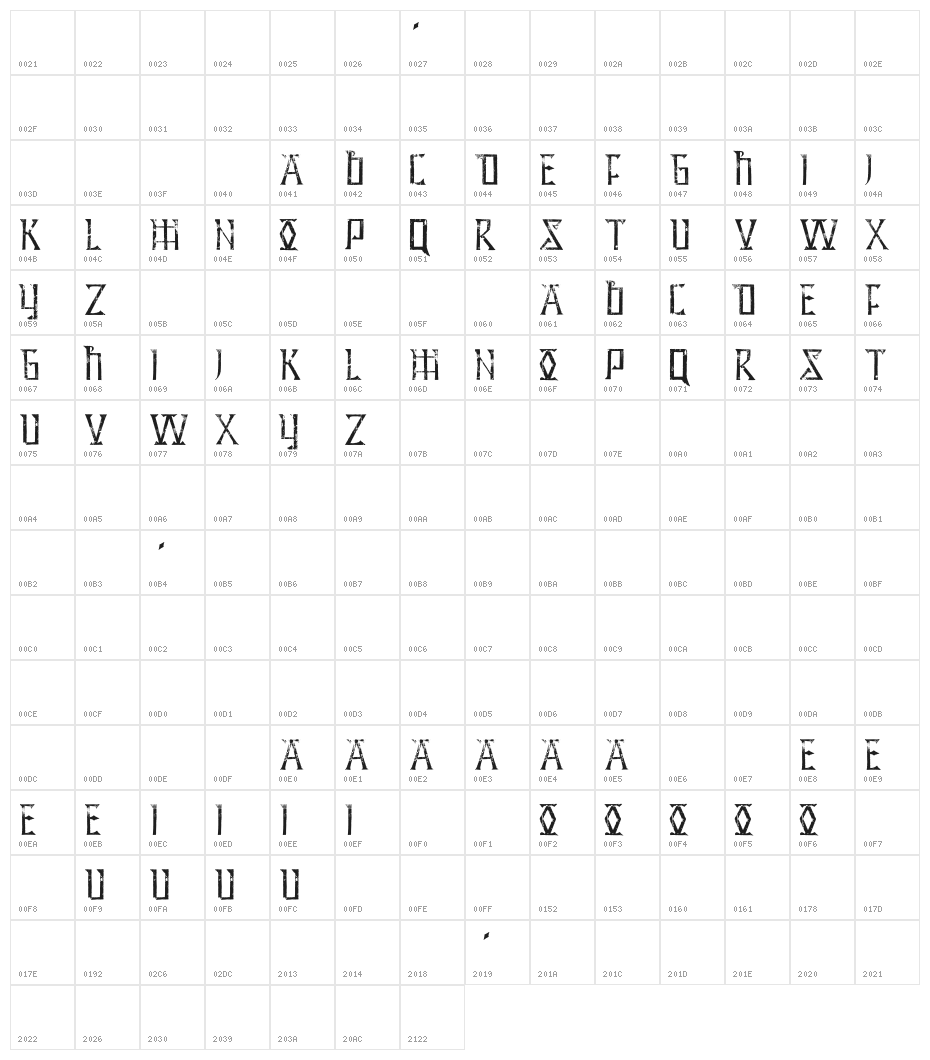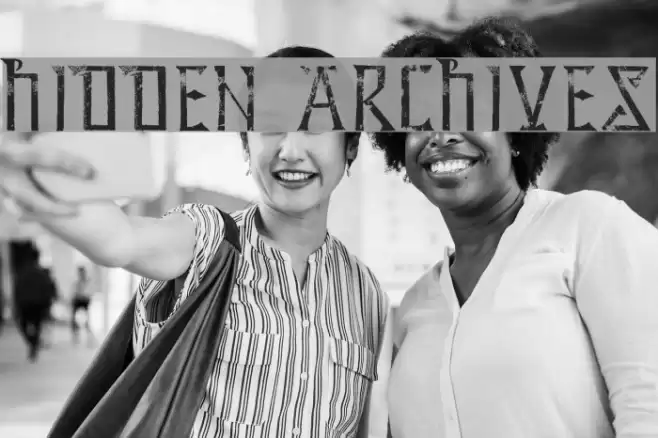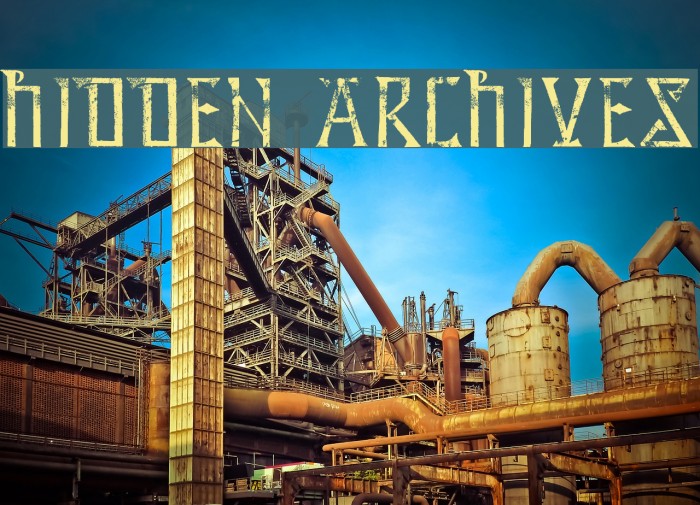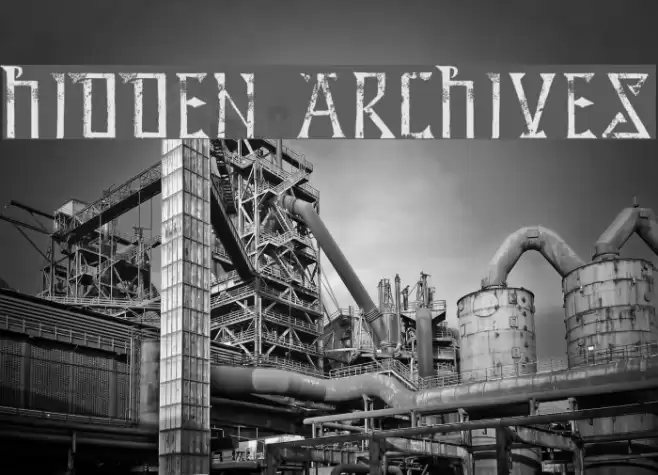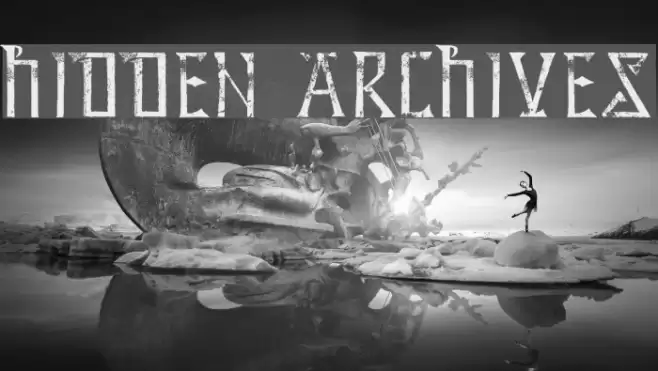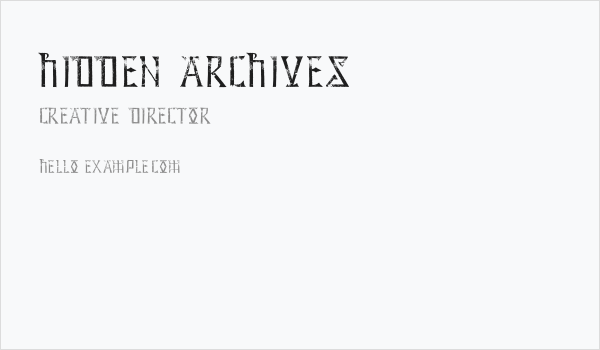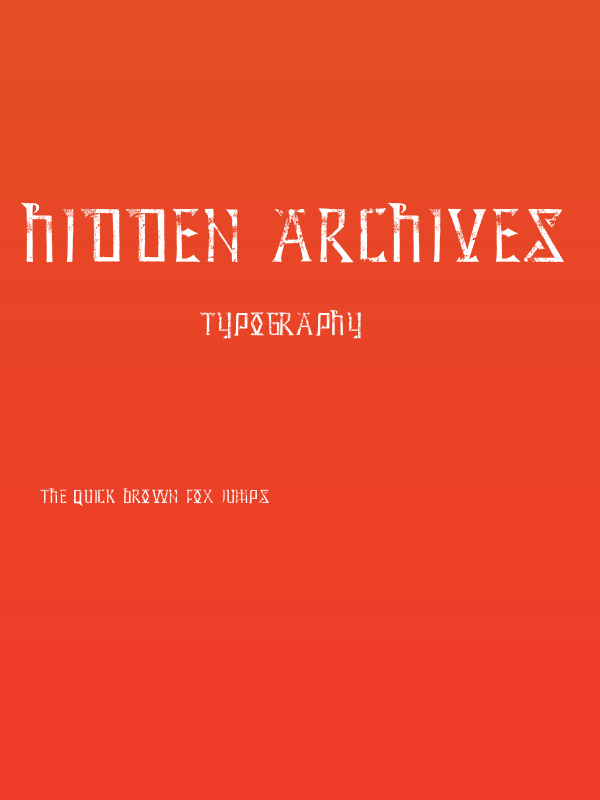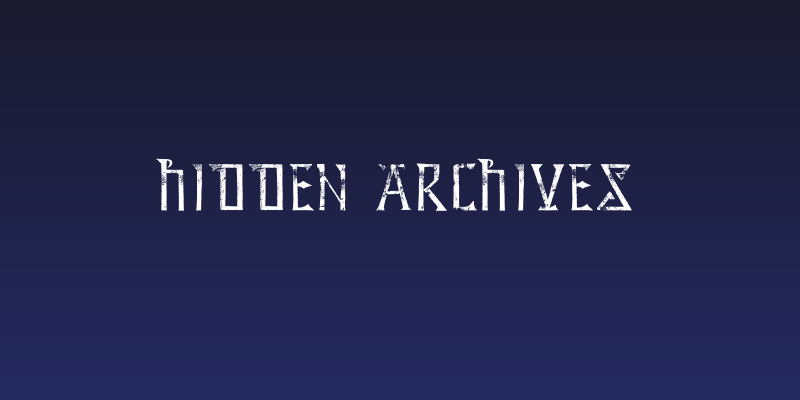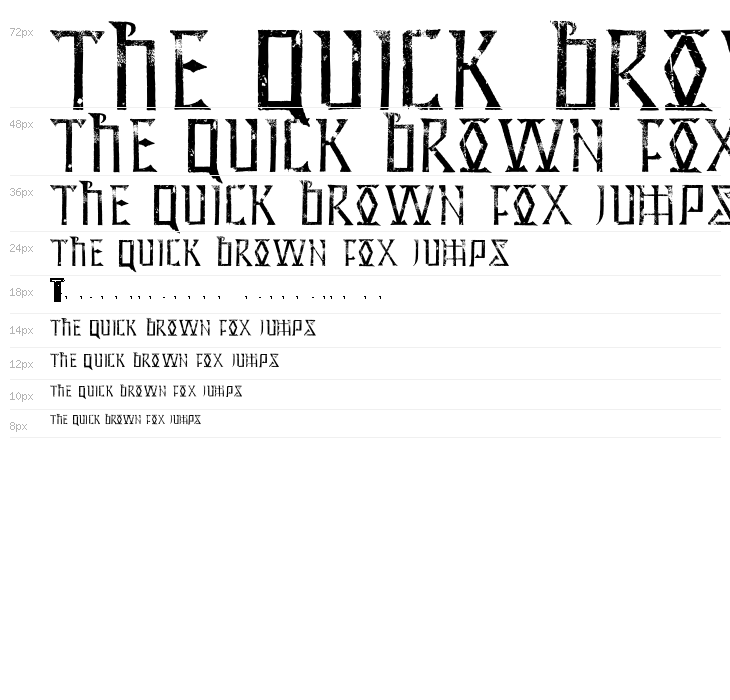
Hidden Archives Font
Hidden Archives Description
This font features a distressed, grunge aesthetic with a bold and angular design. The uppercase letters are characterized by sharp edges and a slightly uneven texture, giving them a rugged, worn appearance. The style is reminiscent of ancient or medieval scripts, with a modern twist that incorporates a rough, textured finish. The letters are closely spaced, enhancing the compact and impactful look of the text. This font is ideal for creating a strong visual impact, suitable for projects that require a bold and distinctive typeface.
| Proposed Projects | Ideal for posters, album covers, video game titles, and branding that requires a strong, edgy look. |